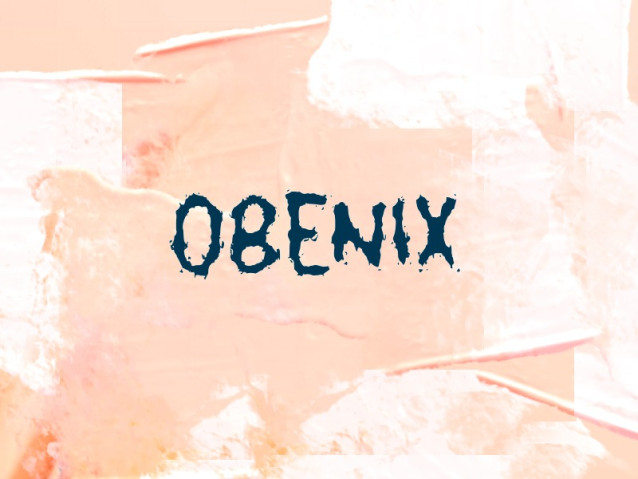
Obenix Font
Obenix is a striking display font designed with a raw, handcrafted feel. Its jagged edges and brush-like strokes give it a powerful, “trash-style” aesthetic that’s perfect for designs that need to stand out with a bit of an edge.